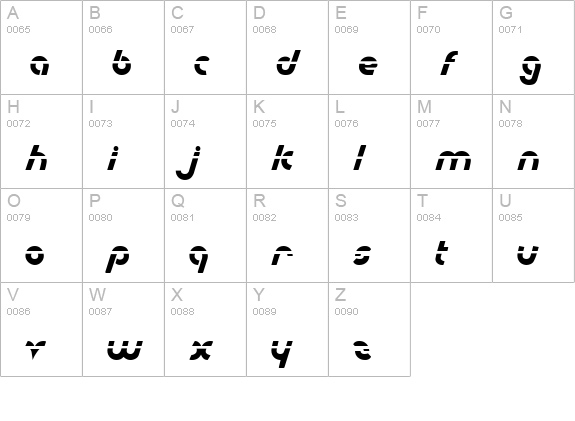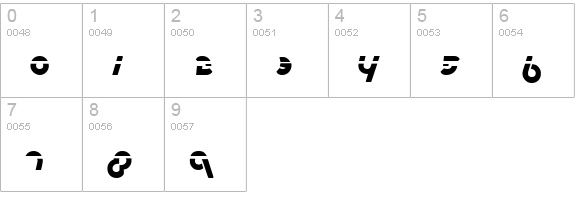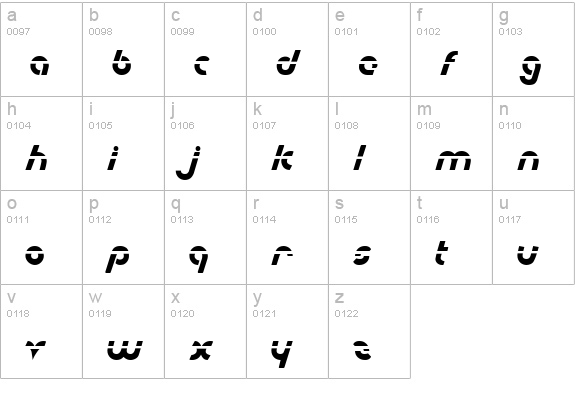
Metroplex Laser Font Details
Metroplex Laser font is a sleek and futuristic typeface that exudes a sense of cutting-edge sophistication. Its sharp lines and precise curves give it a high-tech look that is perfect for modern design projects. This font is ideal for conveying a sense of innovation and progress in branding, marketing materials, and digital designs. One of the best features of Metroplex Laser font is that it is completely free to download. You can easily access this font at FontsMarket.com, where you can find a wide range of other high-quality fonts for all your creative needs. With Metroplex Laser font, you can add a touch of contemporary style to your projects without breaking the bank. So why wait? Download Metroplex Laser font today and elevate your designs with its sleek and futuristic aesthetic.